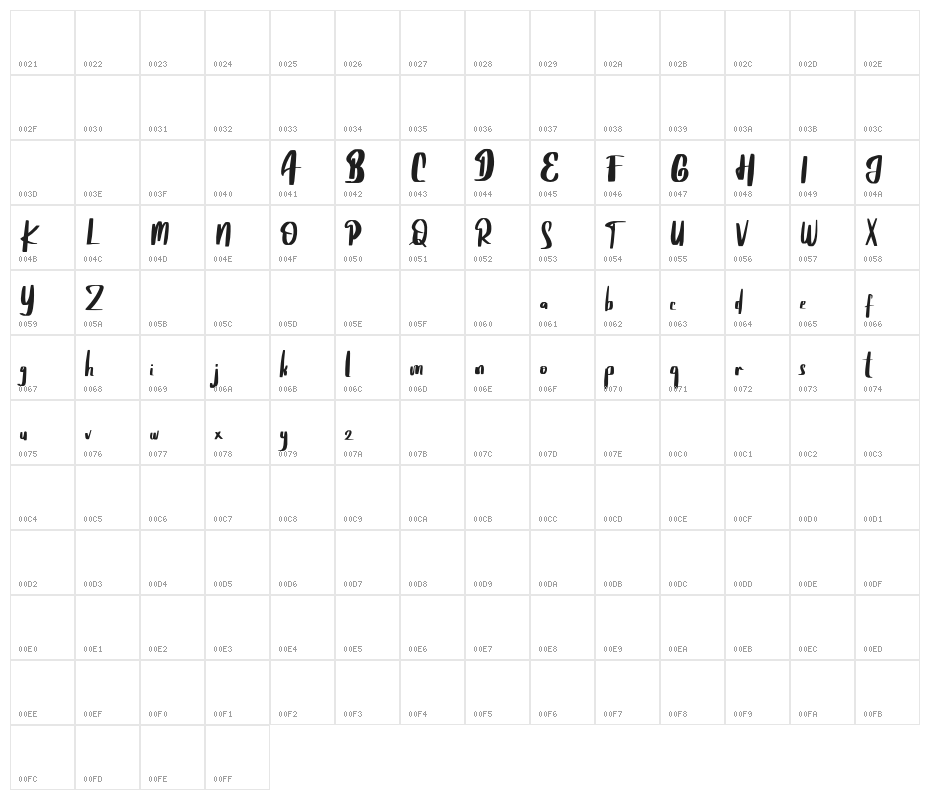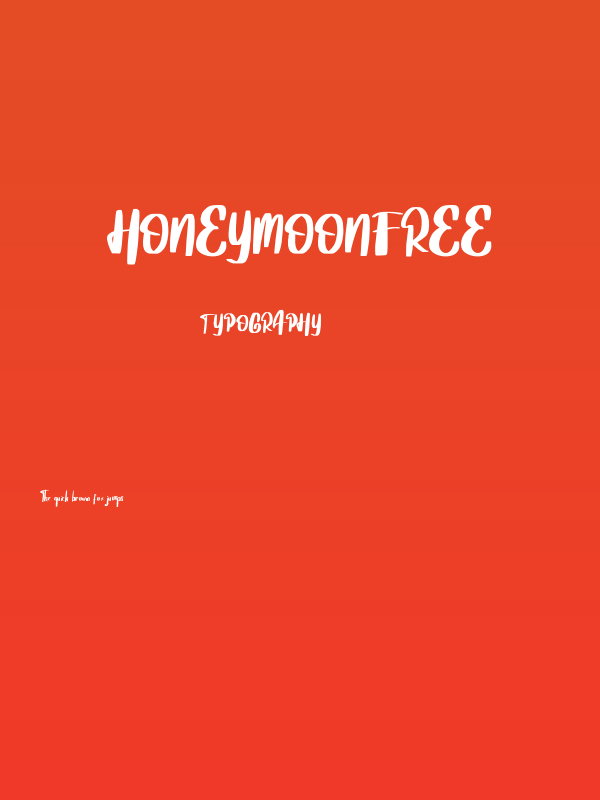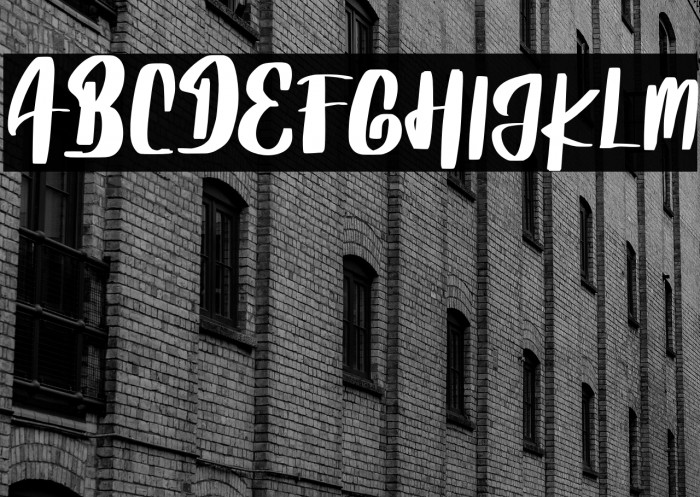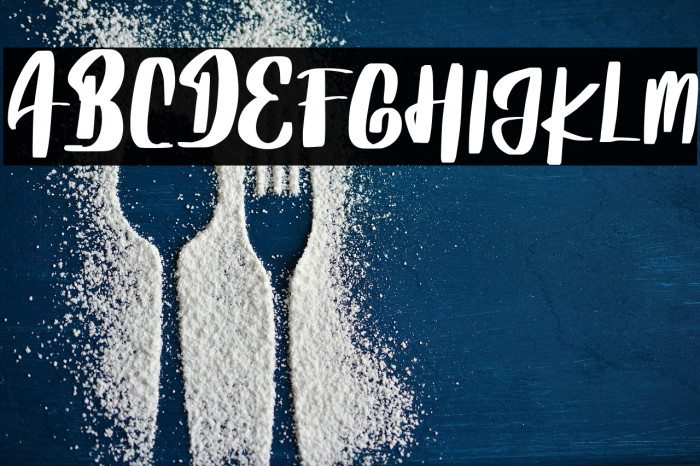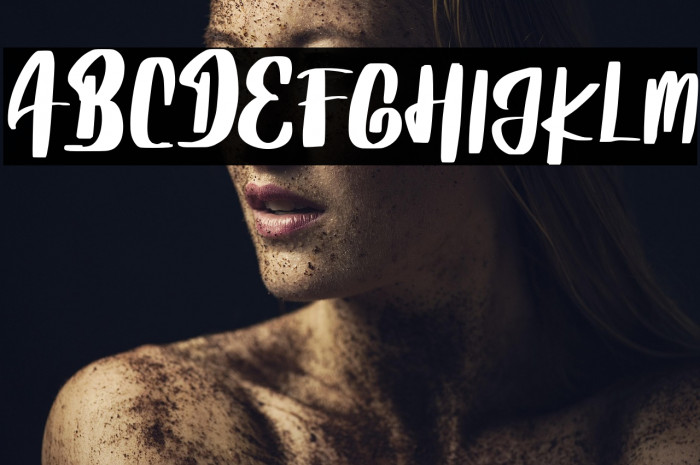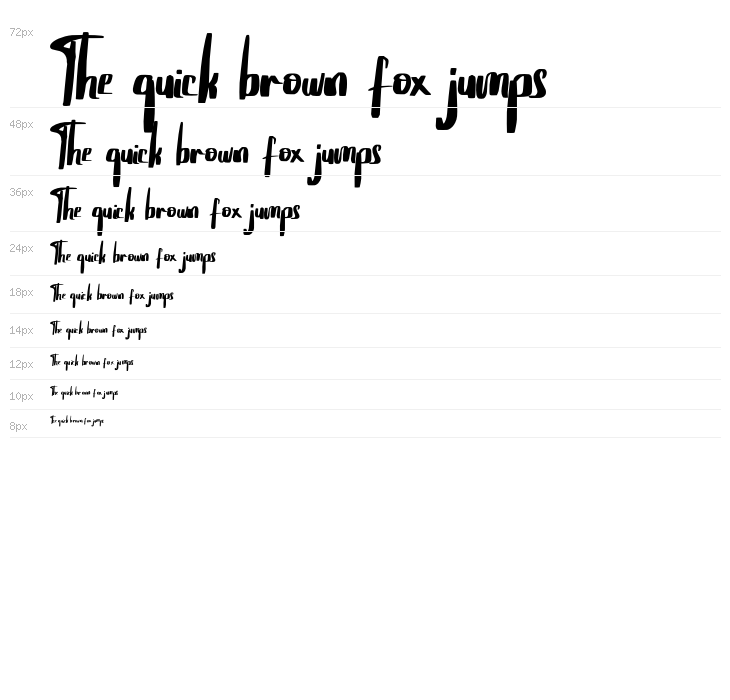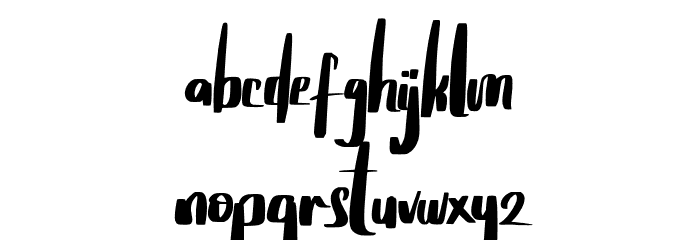
HoneyMoonFREE Font
HoneyMoonFREE Description
This font features a playful and dynamic style with a handwritten appearance. The characters are bold and slightly slanted, giving a sense of movement and energy. The uppercase letters are tall and expressive, while the lowercase letters maintain a consistent flow with unique flourishes. The strokes vary in thickness, adding to the font's lively and informal feel. This font is ideal for projects that require a personal touch or a creative flair. Its distinctive style makes it suitable for eye-catching designs.